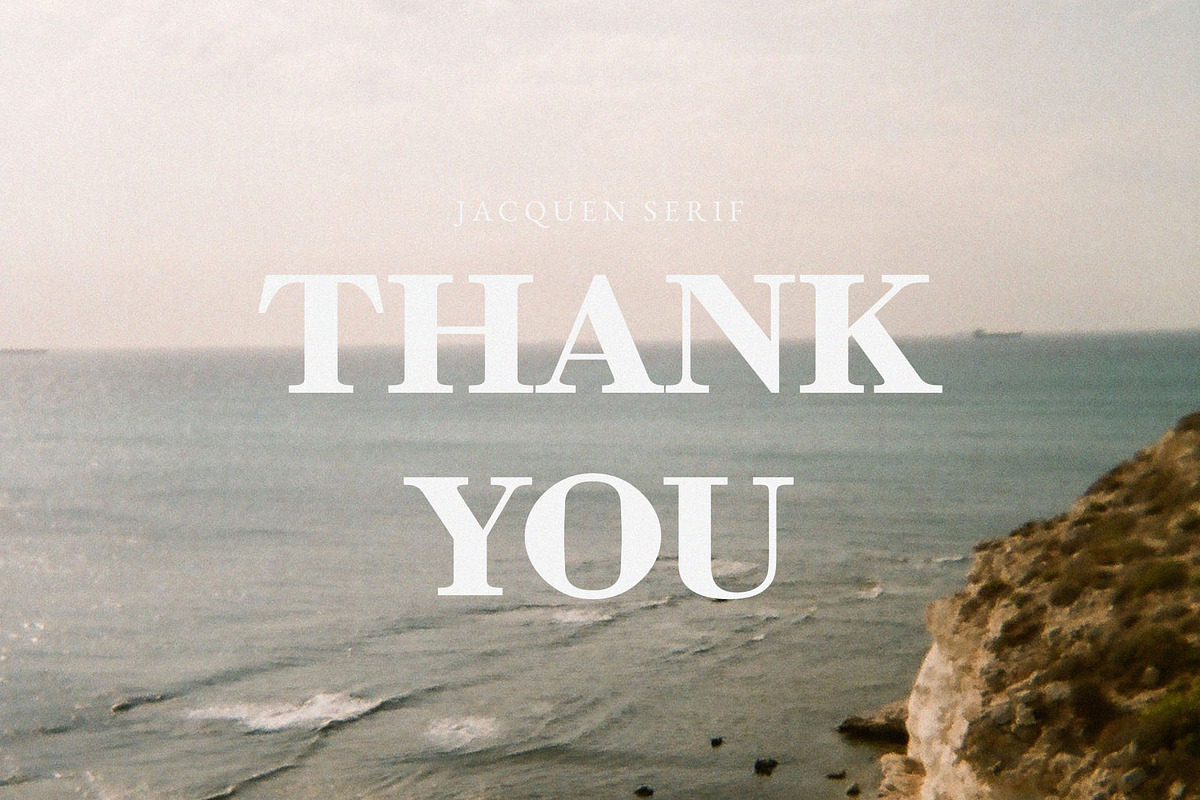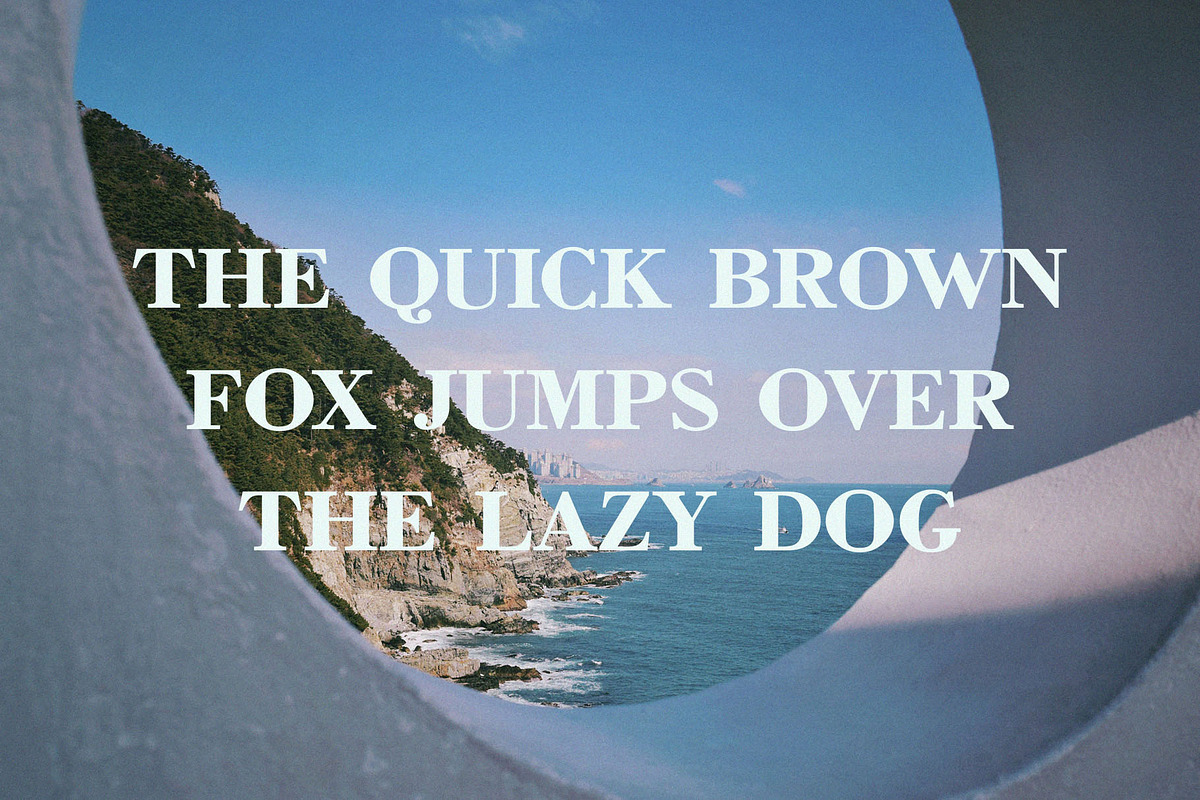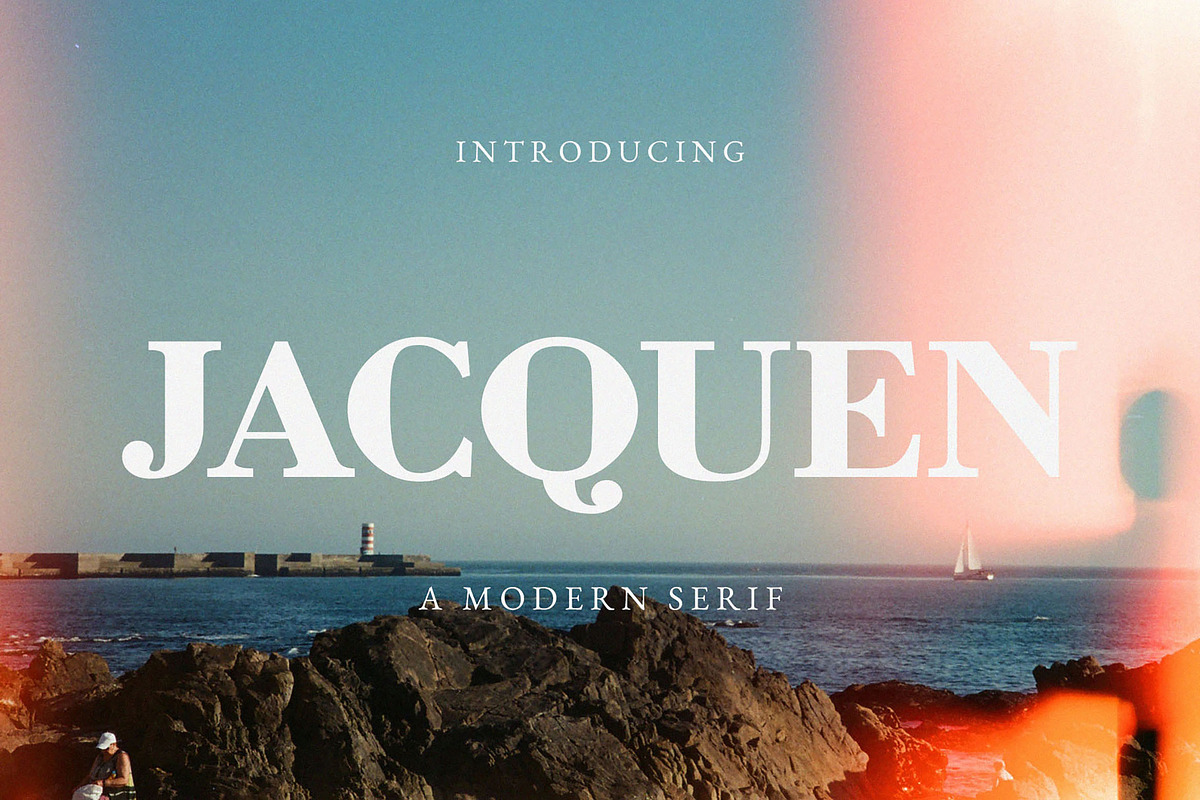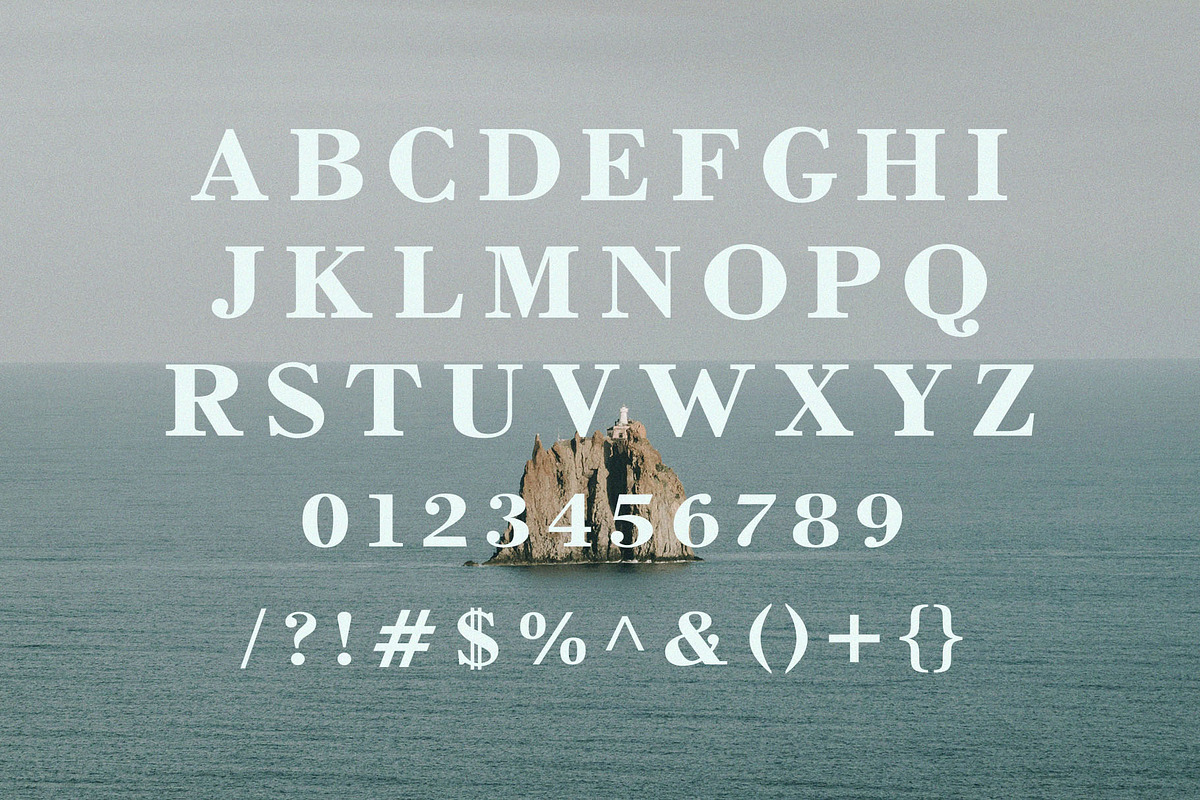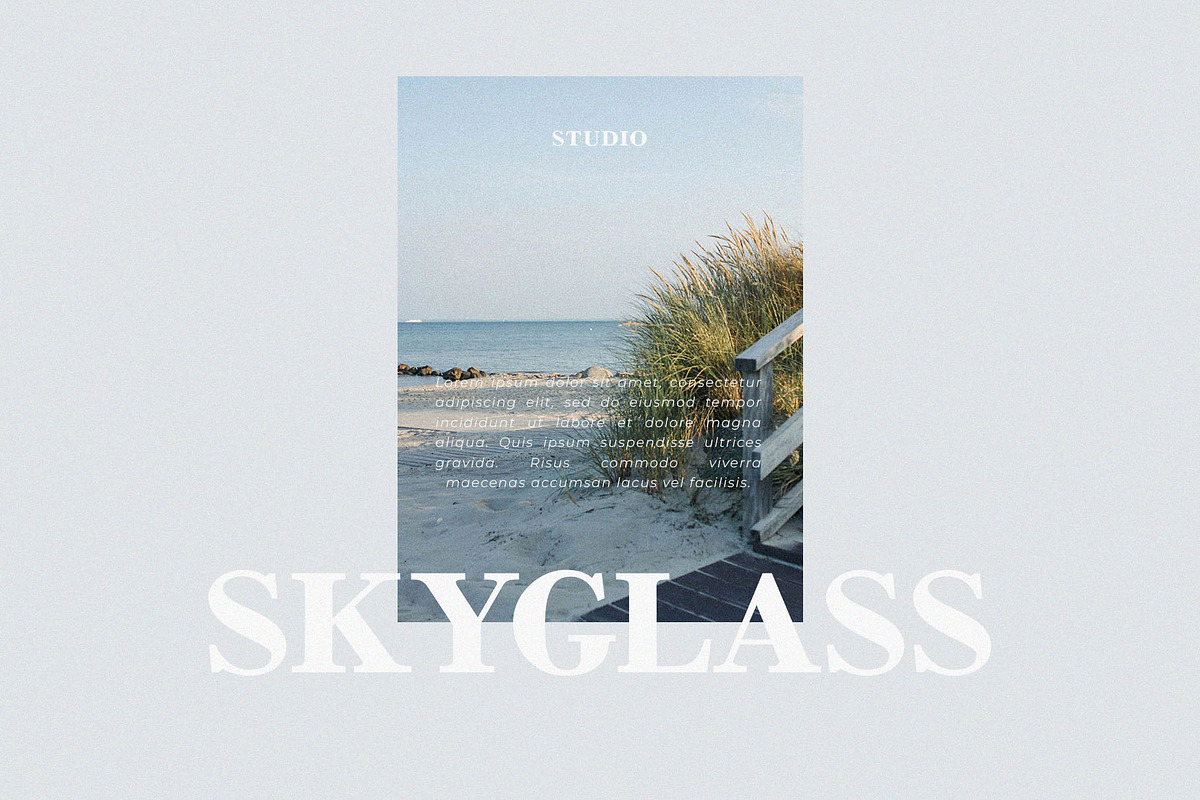
Jacquen - A Modern Serif Font
Introducing our new Jacquen, modern serif font with elegant style this is perfect for branding, logos, invitation, magazines, product packaging and more.